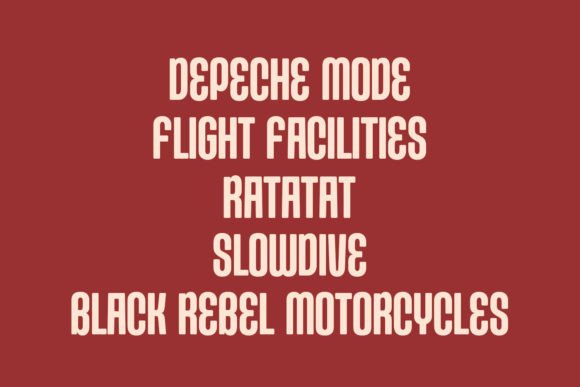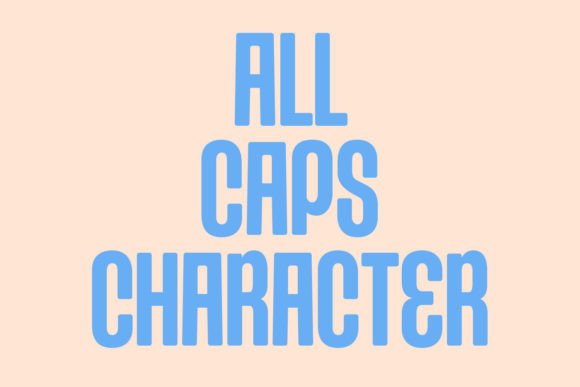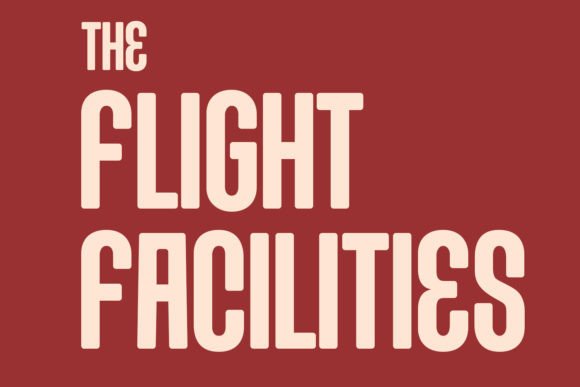
Introduction to Kracken Font
Have you ever been brainstorming ideas for your creative project, only to find the perfect font that brings your concept to life? For designers, discovering a high-quality font can be a game-changer. And that’s exactly what happens when you come across the Kracken Font – a soft, unique, and condensed sans serif font that’s perfect for logo design, social media, movie titles, and more.
Whether you’re working on a logo design or need a font for a social media campaign, the Kracken Font is sure to make your project stand out. Its transparent background makes it easy to use, and its unique style ensures that your design will be remembered.
Key Features of Kracken Font
- High-quality font with a unique, creative design suitable for various projects.
- Features a transparent background, allowing for easy layering and customization in creative projects.
- Designed with a high resolution (up to 300 DPI), ensuring crisp and clear text display in various applications.
- Supports a wide range of languages, making it a versatile font for international design projects.
- Perfect for use in creative projects, including graphic design, digital art, and publishing, due to its unique and eye-catching design.
Honest Review: Kracken Font
The Kracken Font is a great find, offering a unique and eye-catching design that’s perfect for various creative projects. Here are some of its notable features:
- ✨ High-quality design that’s perfect for logos, branding, and other visual identities
- ✨ Transparent background, allowing for seamless integration with other design elements
However, I did encounter a few limitations while using the Kracken Font:
- ⚠️ Limited font sizes and styles, which may limit its versatility in certain design scenarios
- ⚠️ Not suitable for large-scale text or body copy, as it may become difficult to read
Overall, the Kracken Font is a great addition to any designer’s toolkit, offering a unique and stylish design that’s perfect for creative projects. While it may have some limitations, its high-quality design and free download make it a valuable design resource.
Tips for Getting the Most Out of Kracken Font
To get the most out of the Kracken Font, try using it with a transparent background to create a unique and eye-catching design. You can also experiment with different font sizes and styles to add visual interest to your project.
The Kracken Font is a versatile design resource that can be used for a wide range of creative projects, including:
Graphic design
Web design
Print design
Marketing materials
Branding